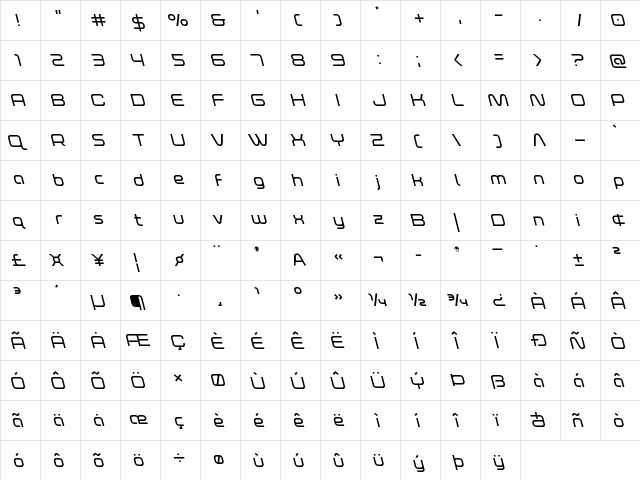
Fox on the Run Leftalic Italic
Design Context for Fox on the Run Leftalic Typeface
Fox on the Run Leftalic takes a measured approach to typography — its balanced proportions and neutral character make it a reliable workhorse for both digital and print work. Its italic angle brings a sense of urgency and motion to the letterforms.